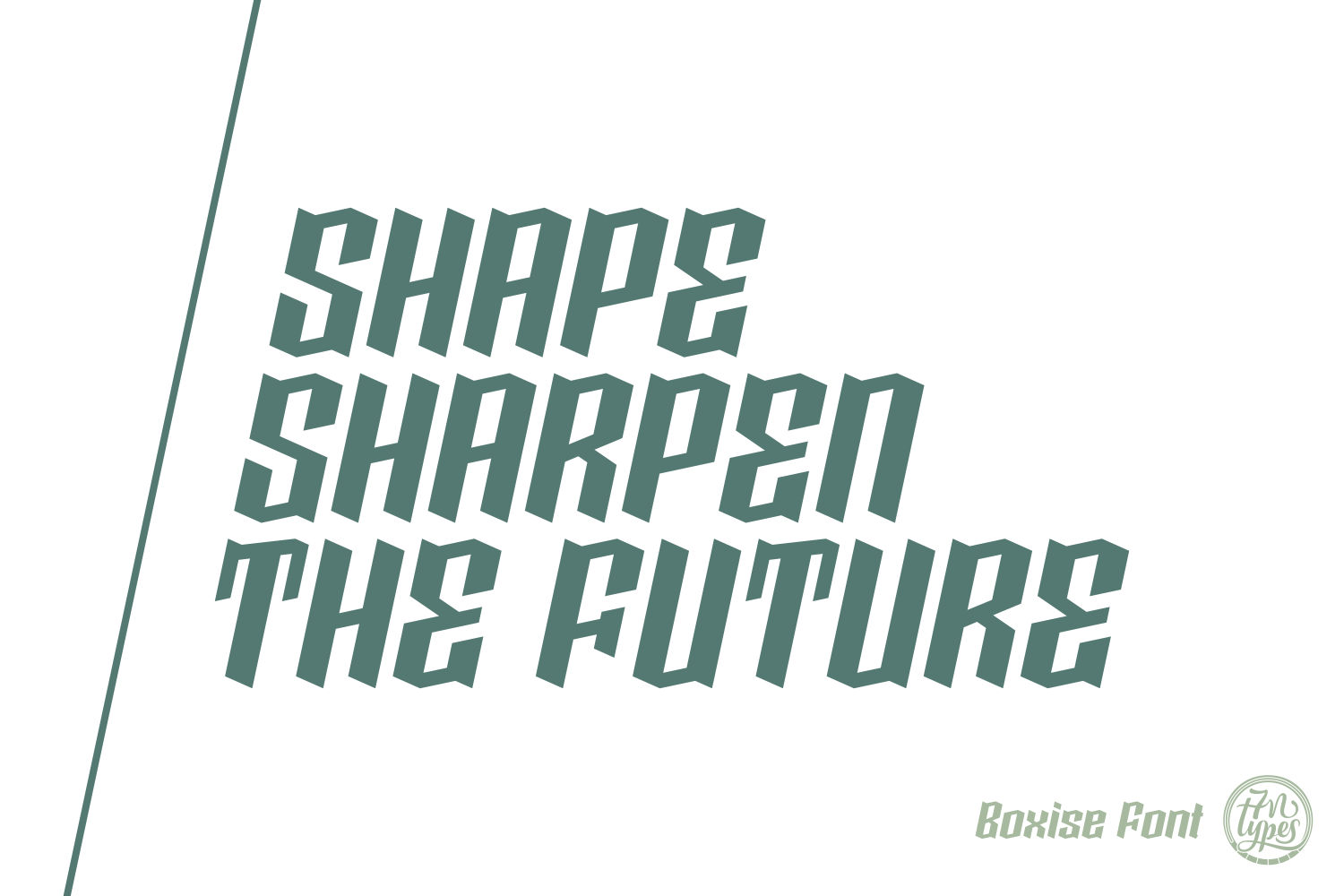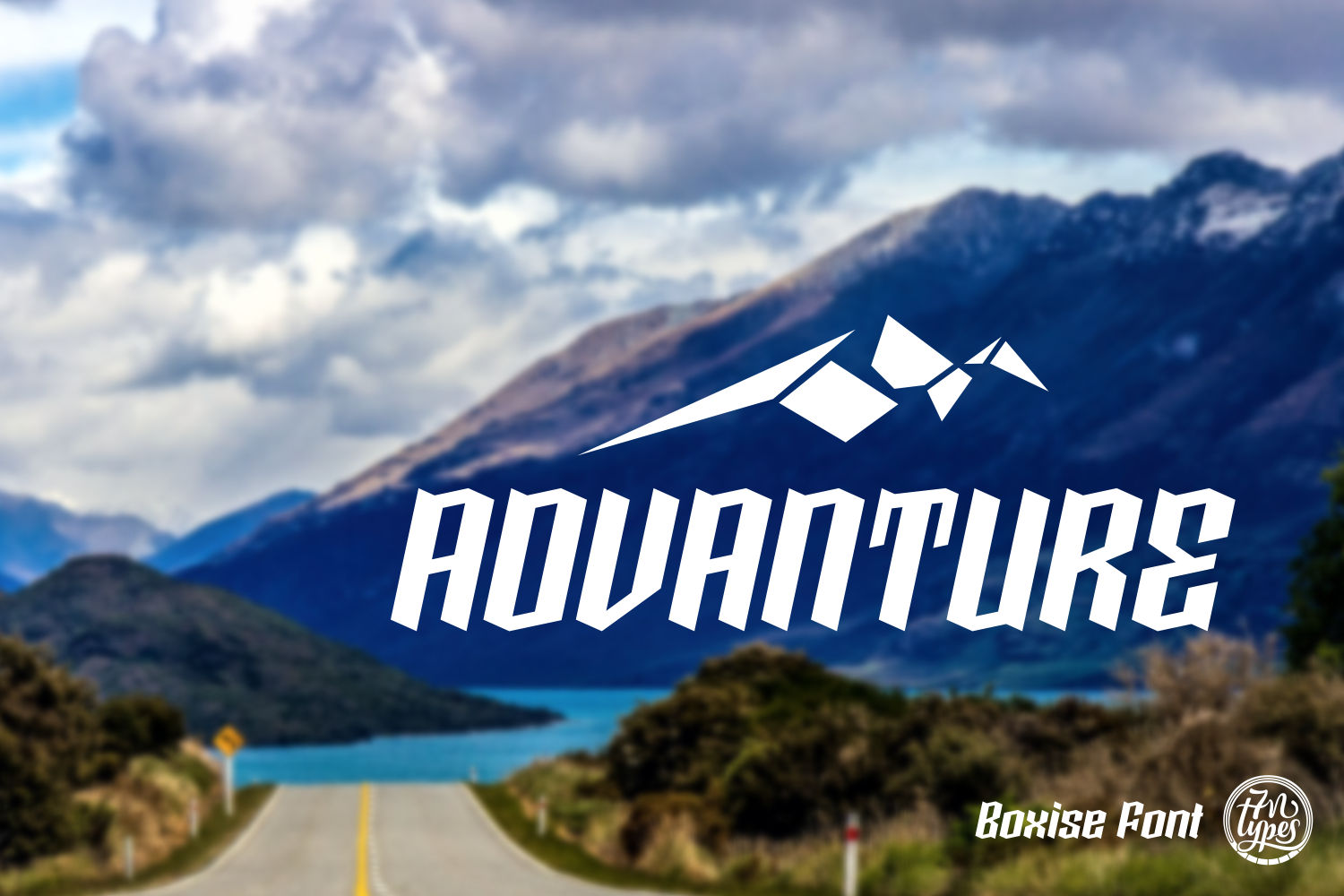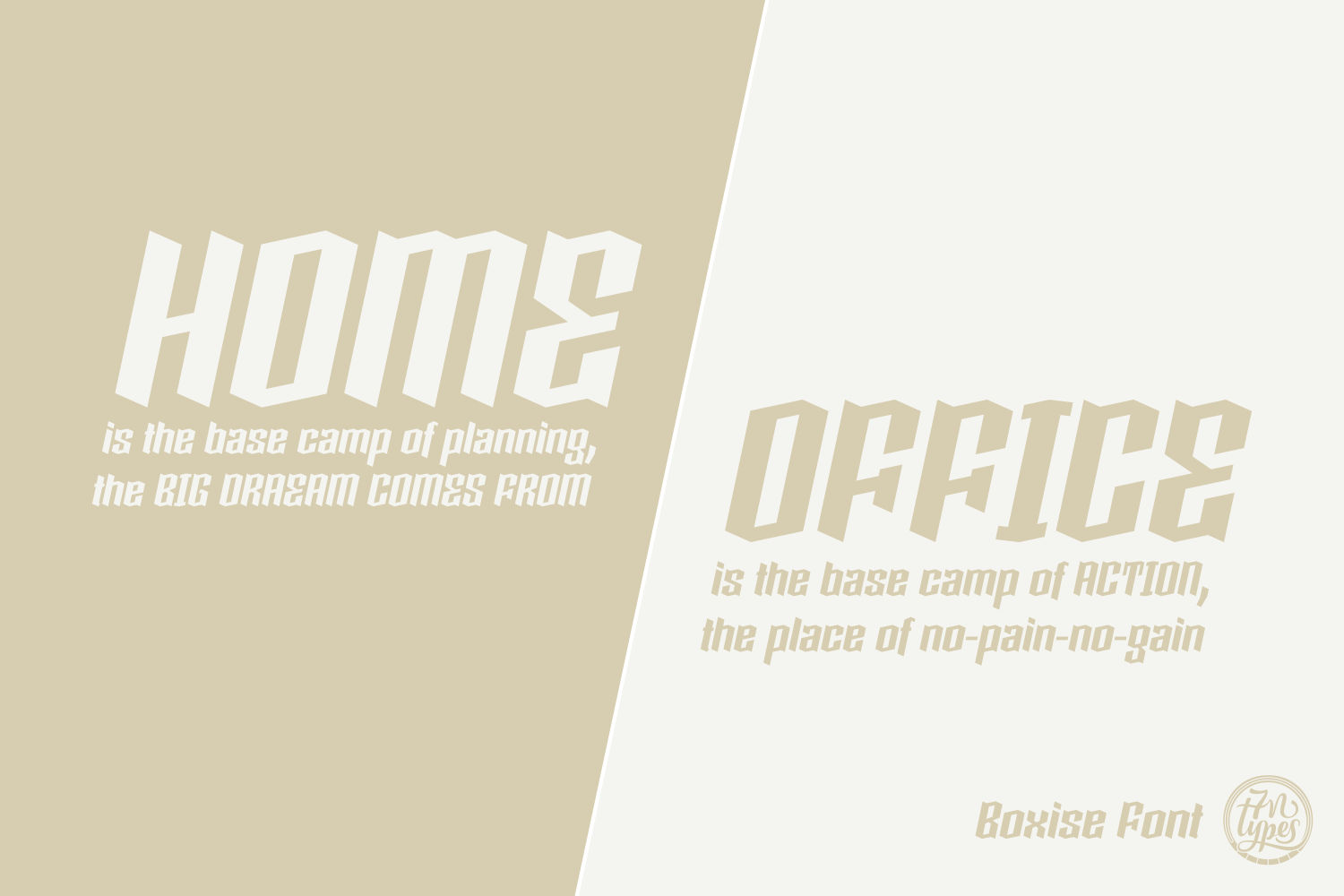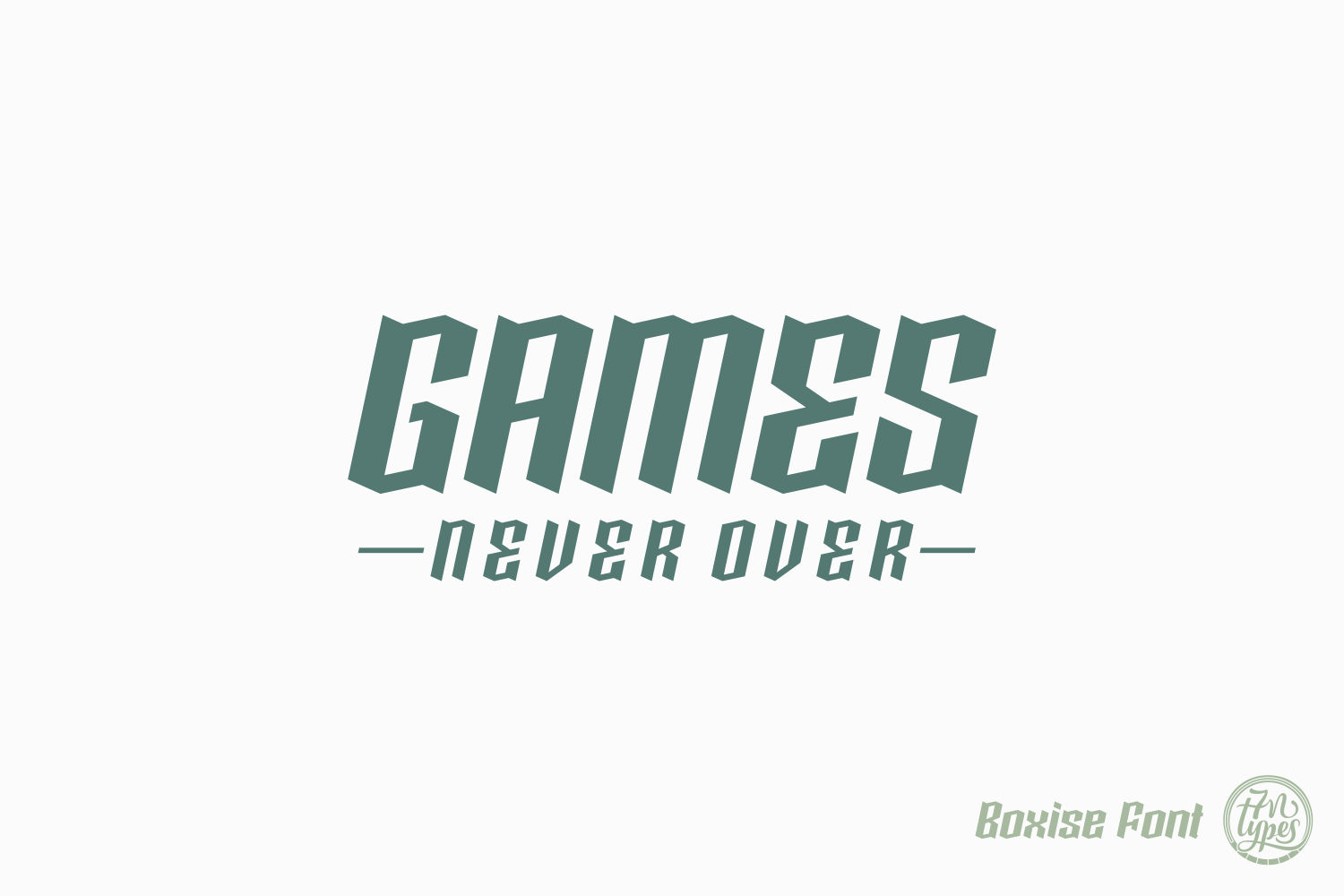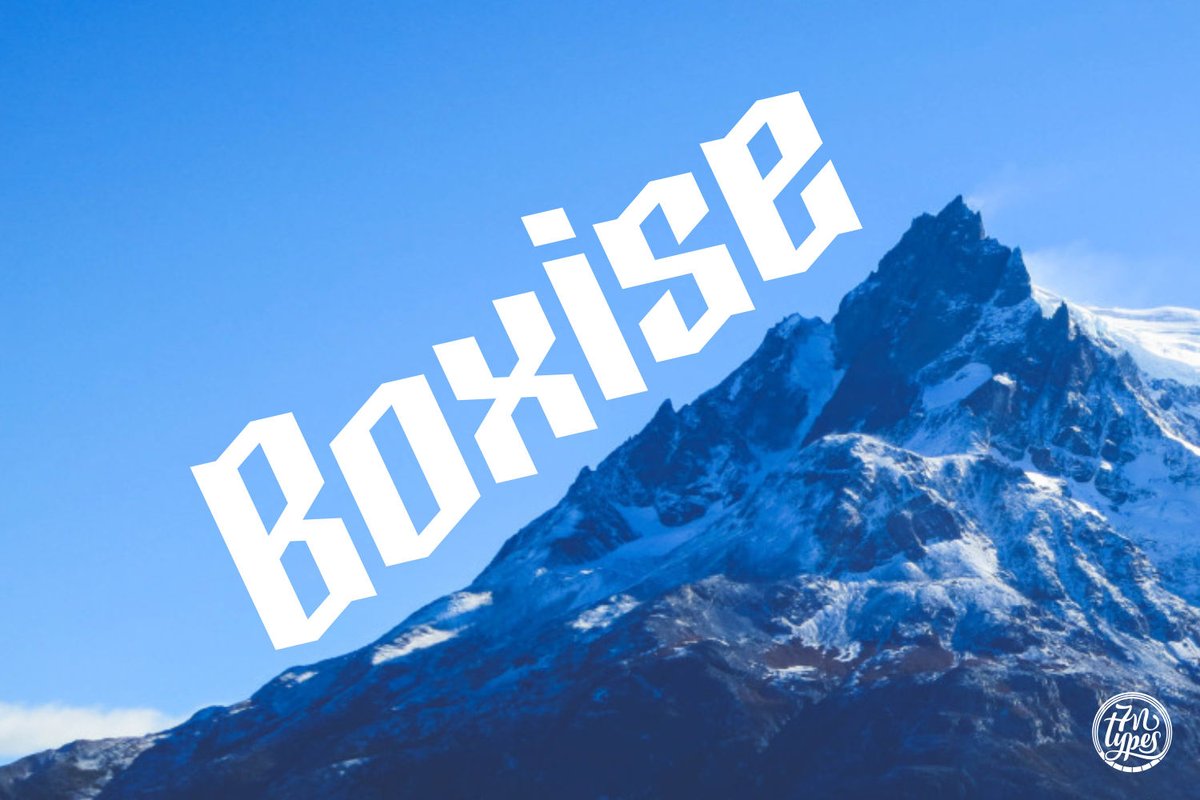
Discovering the Perfect Font for Your Next Creative Project
Have you ever been stuck trying to find the perfect font to match your design vision? I know I have. One moment, you’re scrolling through font libraries, and the next, you stumble upon a font that just clicks. That’s exactly what happened when I discovered the Boxise Font, a beautiful blackletter style font designed by Situjuh Nazara.
What caught my attention about the Boxise Font was its surprising legibility. It’s a characteristic that makes it perfect for a variety of uses, from headings and logos to posters, signs, and even apparel, cards, and invitations. The value of the Boxise Font lies in its versatility, making it a valuable addition to any designer’s toolkit.
Key Features of Boxise Font
- Unique Characteristics: The font features a distinctive, geometric style with clean lines and sharp angles, making it suitable for modern and minimalist designs
Boxise Font Review
Overall, I think Boxise Font is a solid addition to any designer’s toolkit. It’s ✨ clean, ✨ modern, and ✨ versatile. The font is highly customizable, making it perfect for designers who like to experiment with different styles.
One of the things I appreciate most about Boxise Font is its ✨ simplicity. It’s easy to read and doesn’t overwhelm the viewer with too many details. The font also works well in both digital and print formats.
However, there are a few limitations that designers should be aware of: ⚠️ the font may not be suitable for very small text sizes, as it can become difficult to read; ⚠️ the font family is relatively small, which may limit its use in certain contexts; ⚠️ the font’s customization options can be overwhelming for non-designers.
- ✨ Clean and modern design
- ✨ Highly customizable
- ✨ Versatile and suitable for both digital and print formats
What Doesn’t Work Well:
- ⚠️ May not be suitable for very small text sizes
- ⚠️ Relatively small font family
- ⚠️ Overwhelming customization options for non-designers
Overall, I would give Boxise Font 4 out of 5 stars. It’s a great choice for designers who value simplicity and customization, but may not be the best fit for everyone.
Tips for Getting the Most Out of Boxise Font
Here are some tips for using Boxise Font effectively:
– Use it for titles, headings, and other emphasis text.
– Combine it with other fonts to create a visually appealing font combination.
– Experiment with different font sizes and colors to create visual interest.
Boxise Font is commonly used for:
– Designing modern and minimalist layouts.
– Creating a clean and professional look.
– Adding a touch of elegance and sophistication to designs.
Alternatives to Boxise Font
Montserrat is a popular sans-serif font designed by Julieta Ulanovsky. It’s perfect for modern designs, especially when you need to convey a sense of professionalism and sophistication. Montserrat is a great alternative to Boxise Font when you need a clean and minimalist look.
Comparison to Boxise Font: Montserrat is more geometric and has a more subtle feel, while Boxise Font is more playful and quirky.
Inter is a modern sans-serif font designed by Rasmus Andersson. It’s highly legible and works well in a variety of contexts, from digital products to print materials. Inter is a great alternative to Boxise Font when you need a font that’s both modern and timeless.